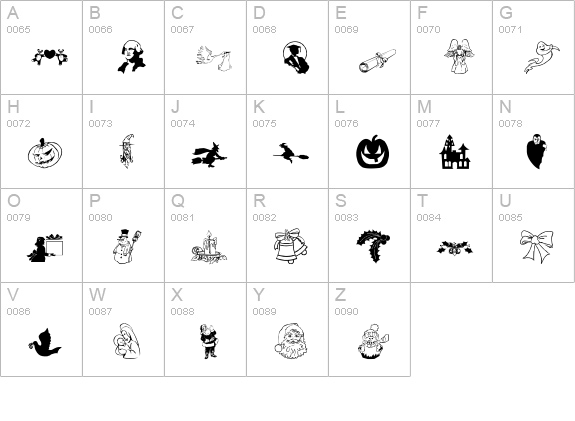
Introducing lpholidays1 font, a delightful and playful typeface that is perfect for adding a touch of whimsy to your designs. This charming font features quirky letterforms with a unique style that will make your projects stand out. Whether you're working on invitations, posters, or branding materials, lpholidays1 font is sure to bring a fun and festive vibe to your work. The best part? This font is freely available to download at FontsMarket.com, so you can easily add it to your font collection without any hassle. With its cheerful and eye-catching design, lpholidays1 font is a great choice for adding a touch of personality to your designs. So go ahead and give your projects a playful twist with lpholidays1 font today!